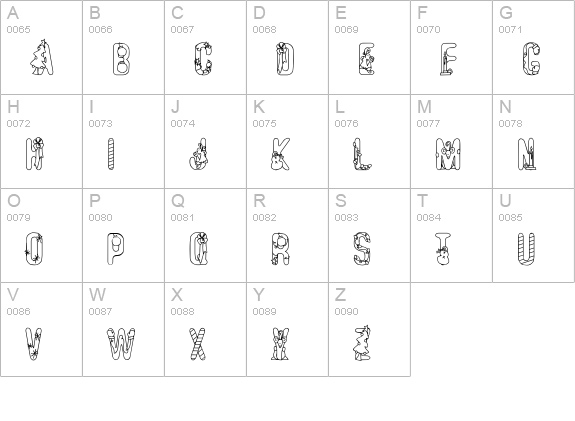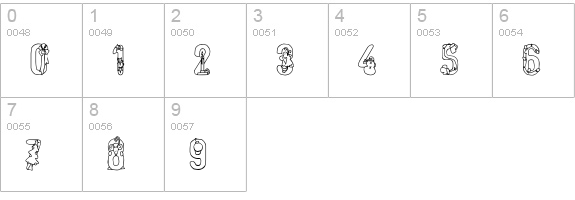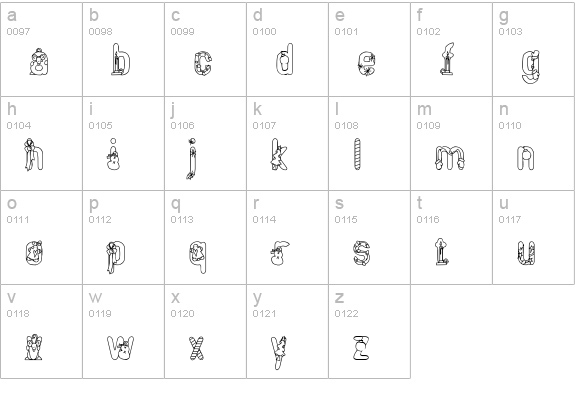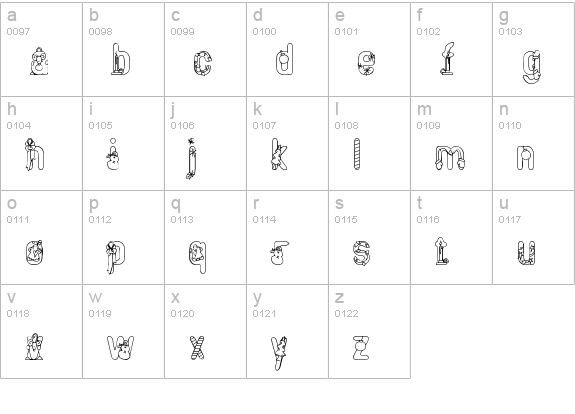
PC Holiday Font Details
Introducing PC Holiday, the perfect font to bring the joy and festivity of the holiday season to your projects. With its whimsical and playful design, PC Holiday captures the essence of celebration and cheer, making it an ideal choice for holiday-themed designs, greeting cards, invitations, and more. This delightful font features a unique combination of bold and elegant letterforms, adorned with charming holiday accents, such as snowflakes, candy canes, and ornaments. Each character dances with a joyful energy, adding a touch of merriment to any text. But what makes PC Holiday truly special is that it is not only a beautiful font, but also a free one. Yes, you heard it right – PC Holiday is freely available to download at FontsMarket.com. This means that you can instantly add a touch of holiday magic to your designs without spending a dime. Whether you're a professional designer working on a client's project or an individual looking to add a personal touch to your holiday cards, PC Holiday is the perfect choice. Its versatility and festive charm make it a font that will bring smiles and warmth to anyone who encounters it. So, don't miss out on this wonderful opportunity to enhance your holiday designs with PC Holiday. Download it for free at FontsMarket.com and let the festivities begin!